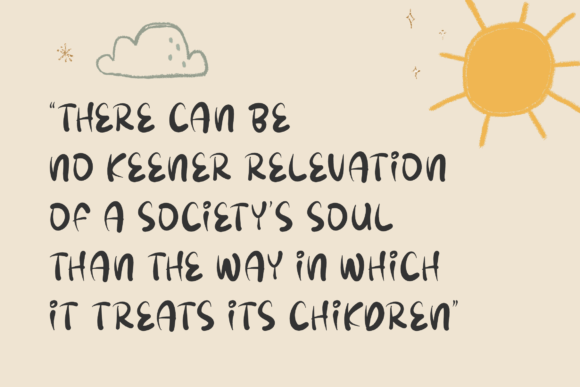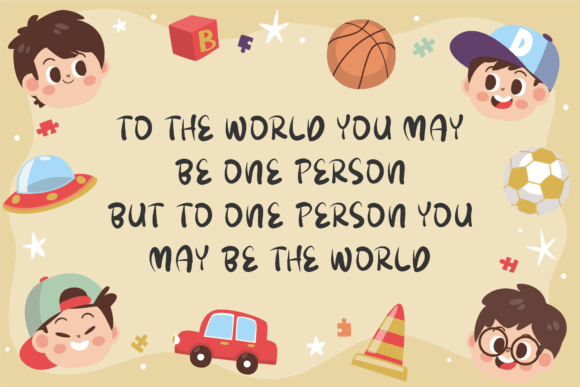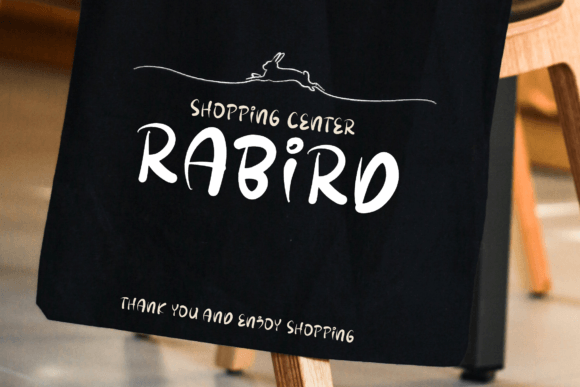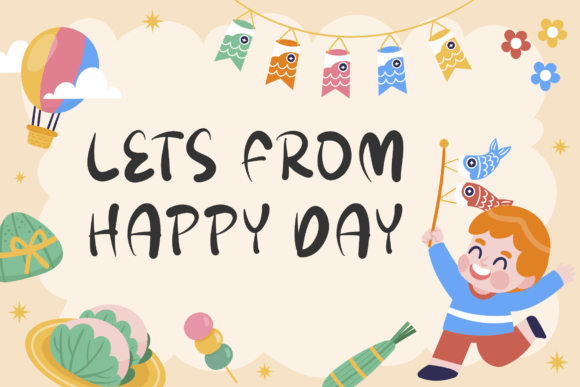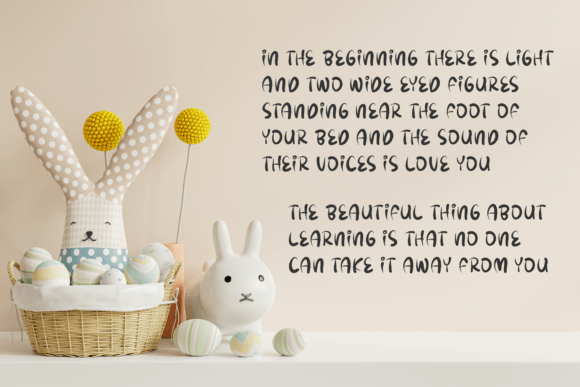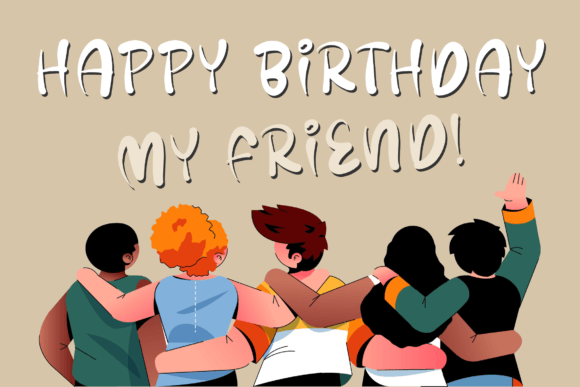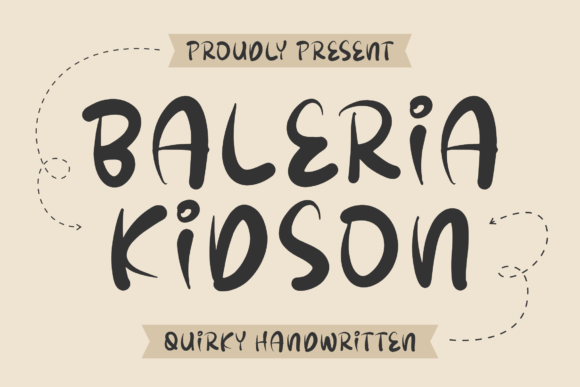
Baleria Kidson Font: Adding a Touch of Whimsy to Your Designs
In the world of typography, fonts play a crucial role in conveying the tone and personality of a design. If you’re looking for a font that can add a touch of playfulness and whimsy to your projects, look no further than Baleria Kidson. This fun and quirky handwritten font is perfect for designers and crafters who want to create unique and eye-catching designs.
What is Baleria Kidson Font?
Baleria Kidson is a handwritten font that boasts a playful and whimsical look. Its irregularities and imperfections give it a charming, hand-crafted feel that’s perfect for designs that require a personal touch. The font’s quirky nature makes it suitable for a wide spectrum of design ideas, from children’s books and party invitations to branding and advertising materials.
Characteristics of Baleria Kidson Font
So, what makes Baleria Kidson font so special? Here are some of its key characteristics:
- Playful and whimsical: Baleria Kidson font has a carefree and imaginative feel that’s perfect for designs that require a touch of personality.
- Handwritten: The font’s handwritten nature gives it a unique, human touch that’s hard to replicate with traditional fonts.
- Quirky: Baleria Kidson’s irregularities and imperfections make it a great choice for designers who want to add some visual interest to their designs.
- Versatile: The font’s playful nature makes it suitable for a wide range of design projects, from digital designs to print materials.
Uses of Baleria Kidson Font
Baleria Kidson font is incredibly versatile, and its uses are endless. Here are some ideas to get you started:
- Children’s books and educational materials: The font’s playful nature makes it perfect for kids’ books, educational materials, and activity sheets.
- Party invitations and decorations: Add a touch of whimsy to your party invitations, decorations, and favors with Baleria Kidson font.
- Branding and advertising: Use Baleria Kidson font to create unique and eye-catching branding materials, such as logos, business cards, and brochures.
- Digital designs: The font is perfect for digital designs, including social media graphics, blog posts, and website headers.
Tips for Using Baleria Kidson Font
Here are some tips for using Baleria Kidson font effectively in your designs:
- Pair it with a neutral font: Balance out the playfulness of Baleria Kidson font by pairing it with a neutral font for body text.
- Experiment with colors: The font’s playful nature makes it perfect for experimenting with bright and bold colors.
- Use it sparingly: While Baleria Kidson font is perfect for headlines and titles, use it sparingly to avoid overwhelming your design.
Baleria Kidson font is a fun and quirky handwritten font that’s perfect for designers and crafters who want to add a touch of whimsy to their designs. Its playful and whimsical look makes it suitable for a wide spectrum of design ideas, from children’s books and party invitations to branding and advertising materials. With its versatility and charm, Baleria Kidson font is sure to become a favorite in your design toolkit.